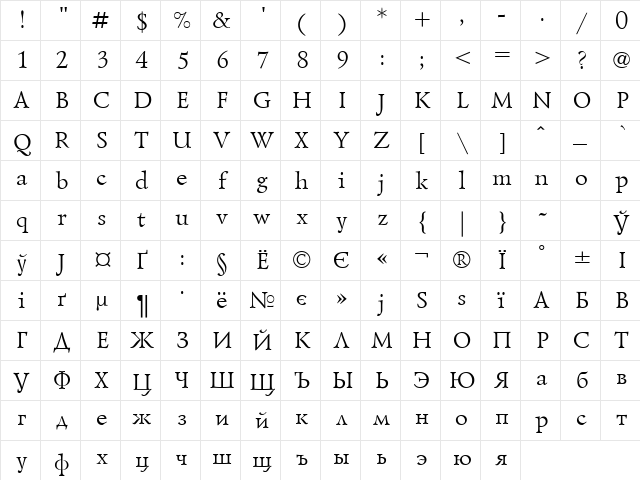
Complete Lazurski Cyrillic glyph index. Displaying only characters natively supported by Lazurski Cyrillic font.
Lazurski is a composed and adaptable typeface that performs quietly and consistently across a wide range of design contexts.